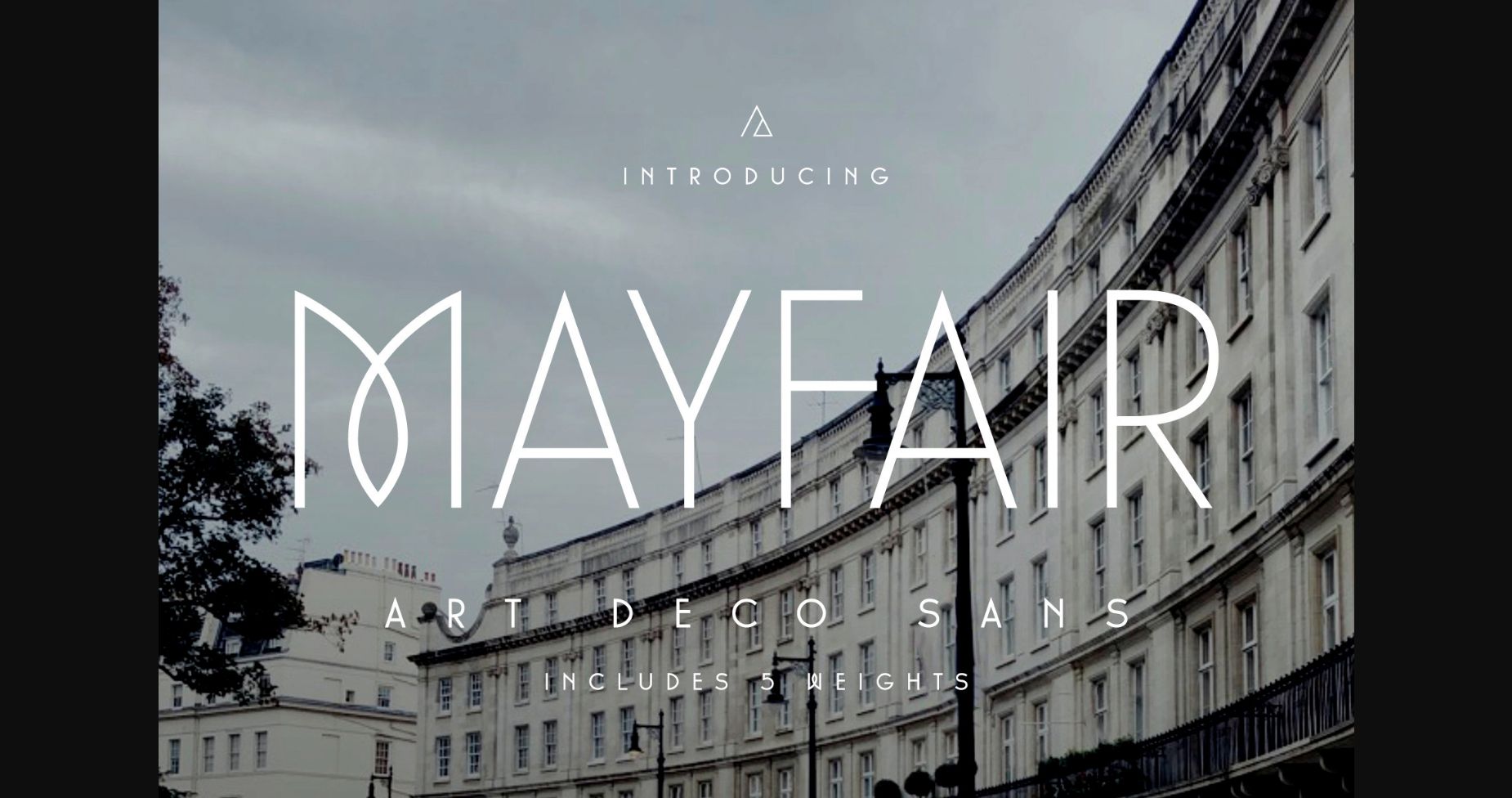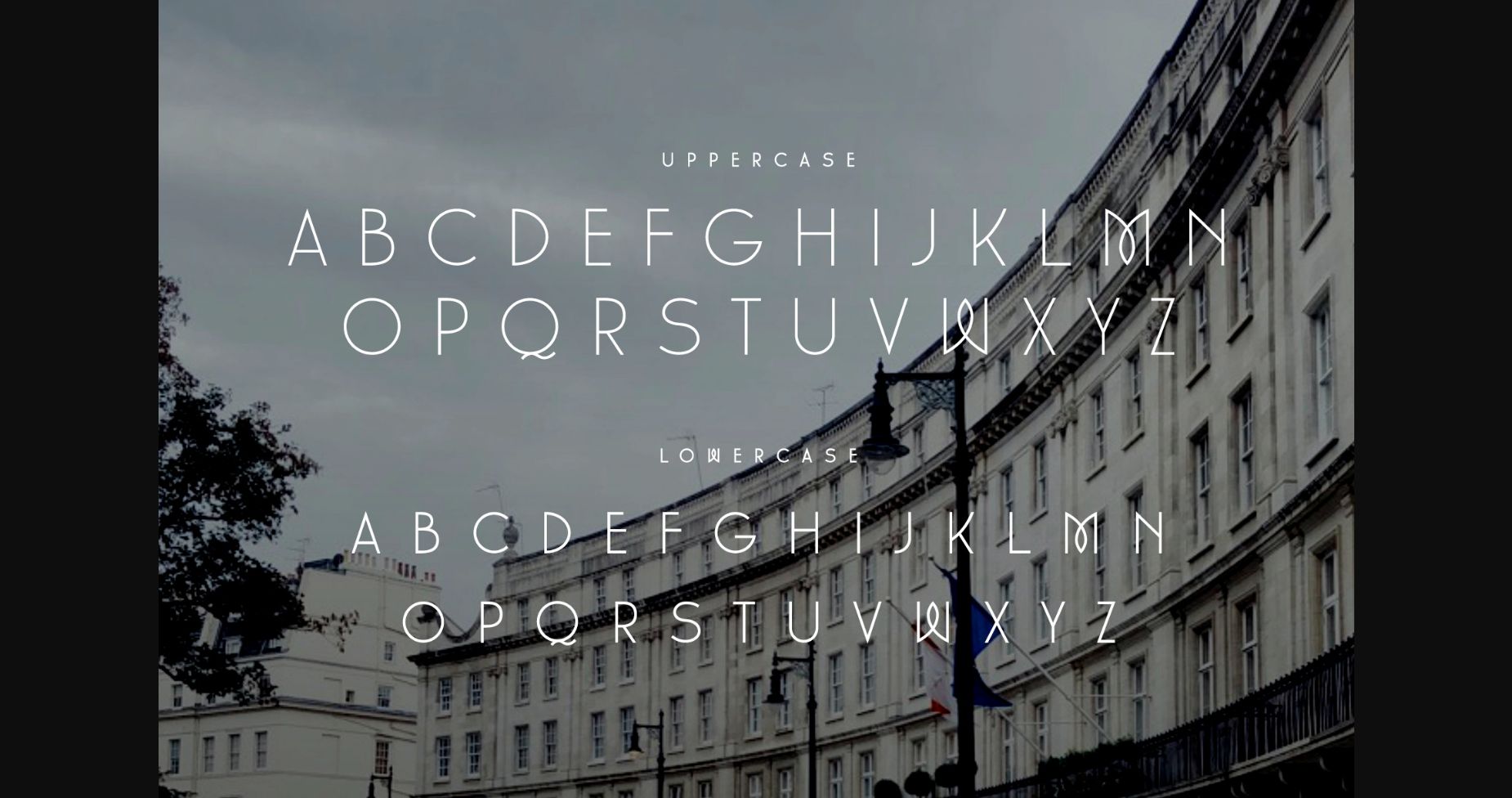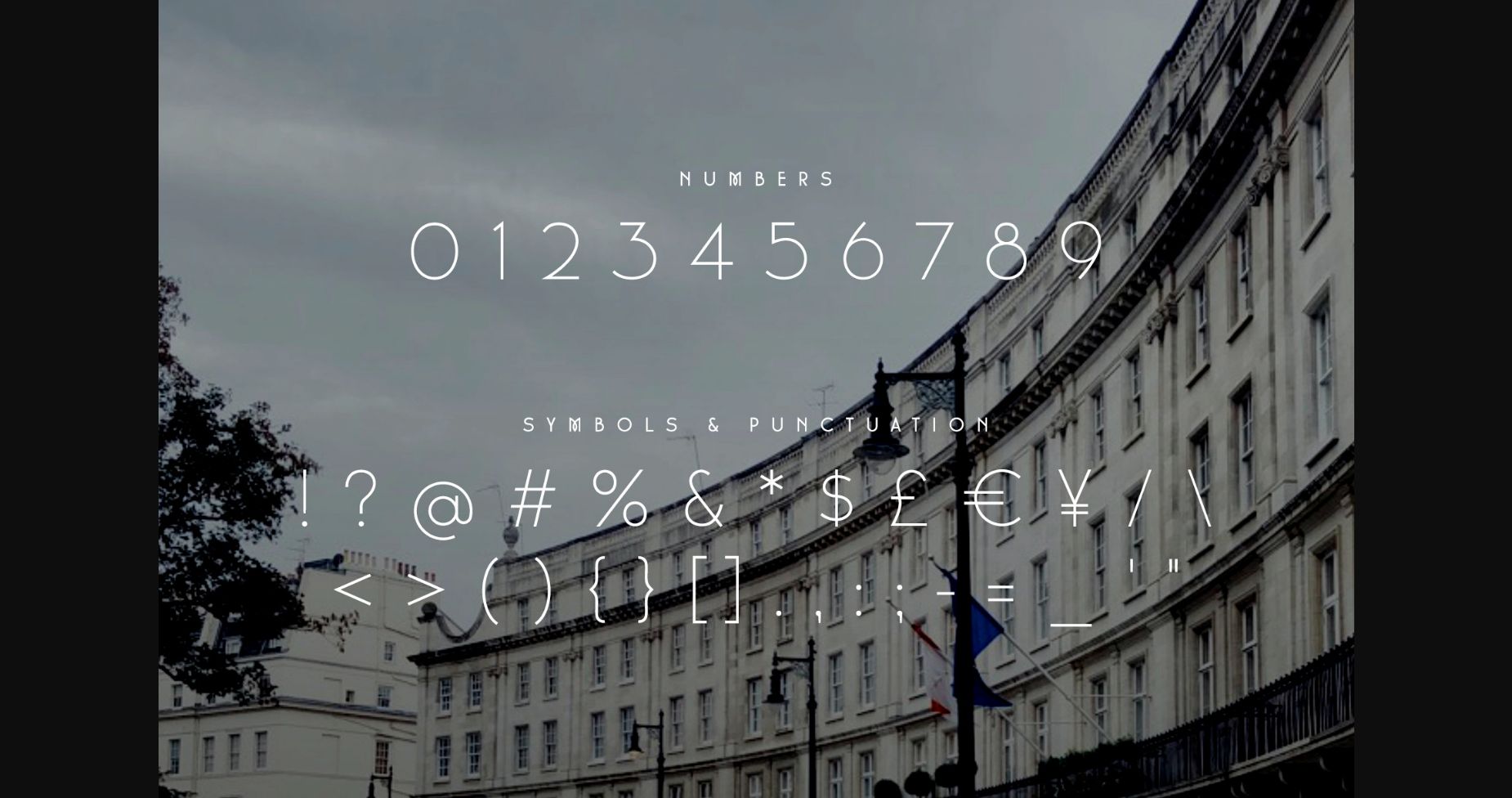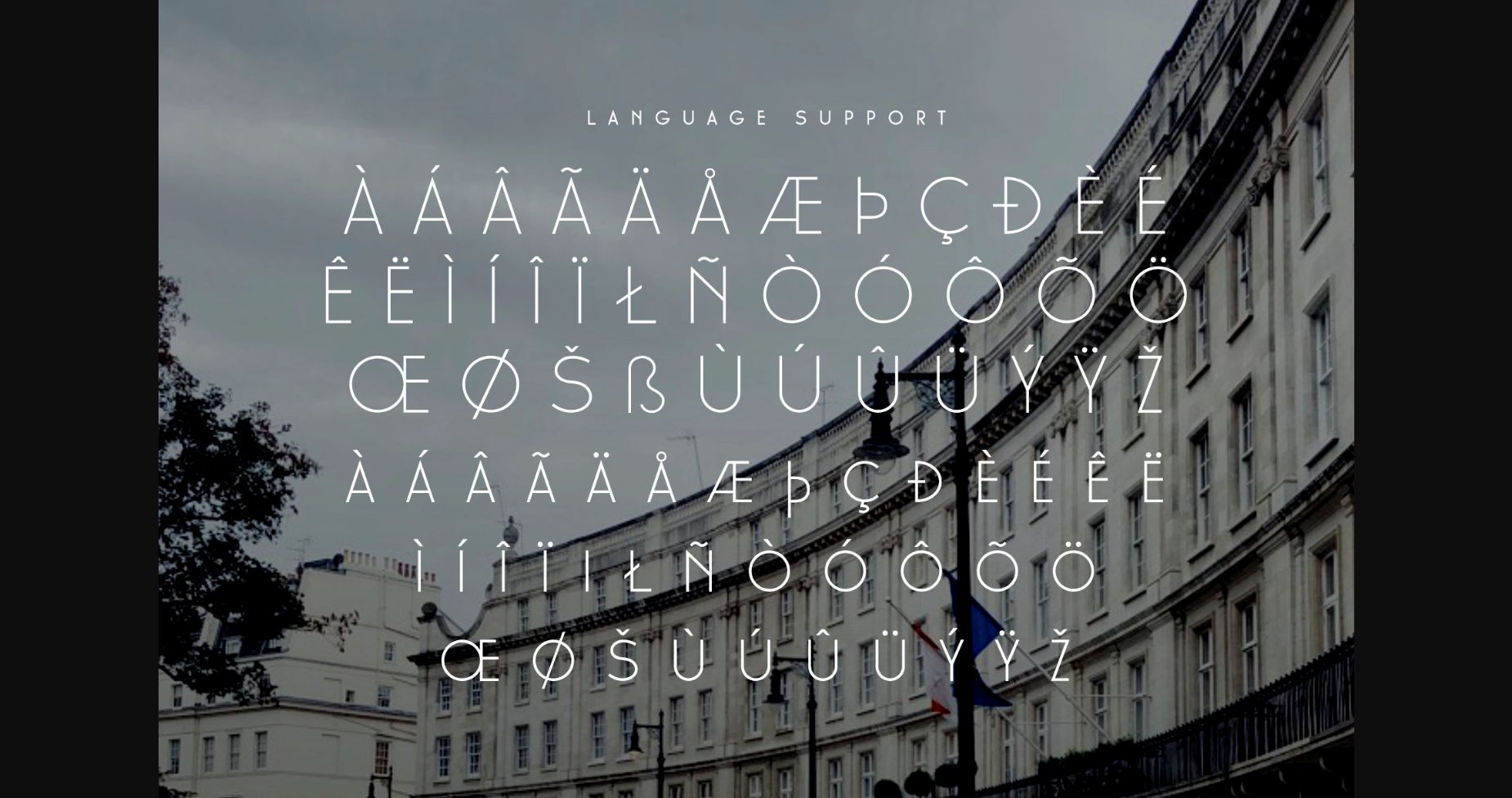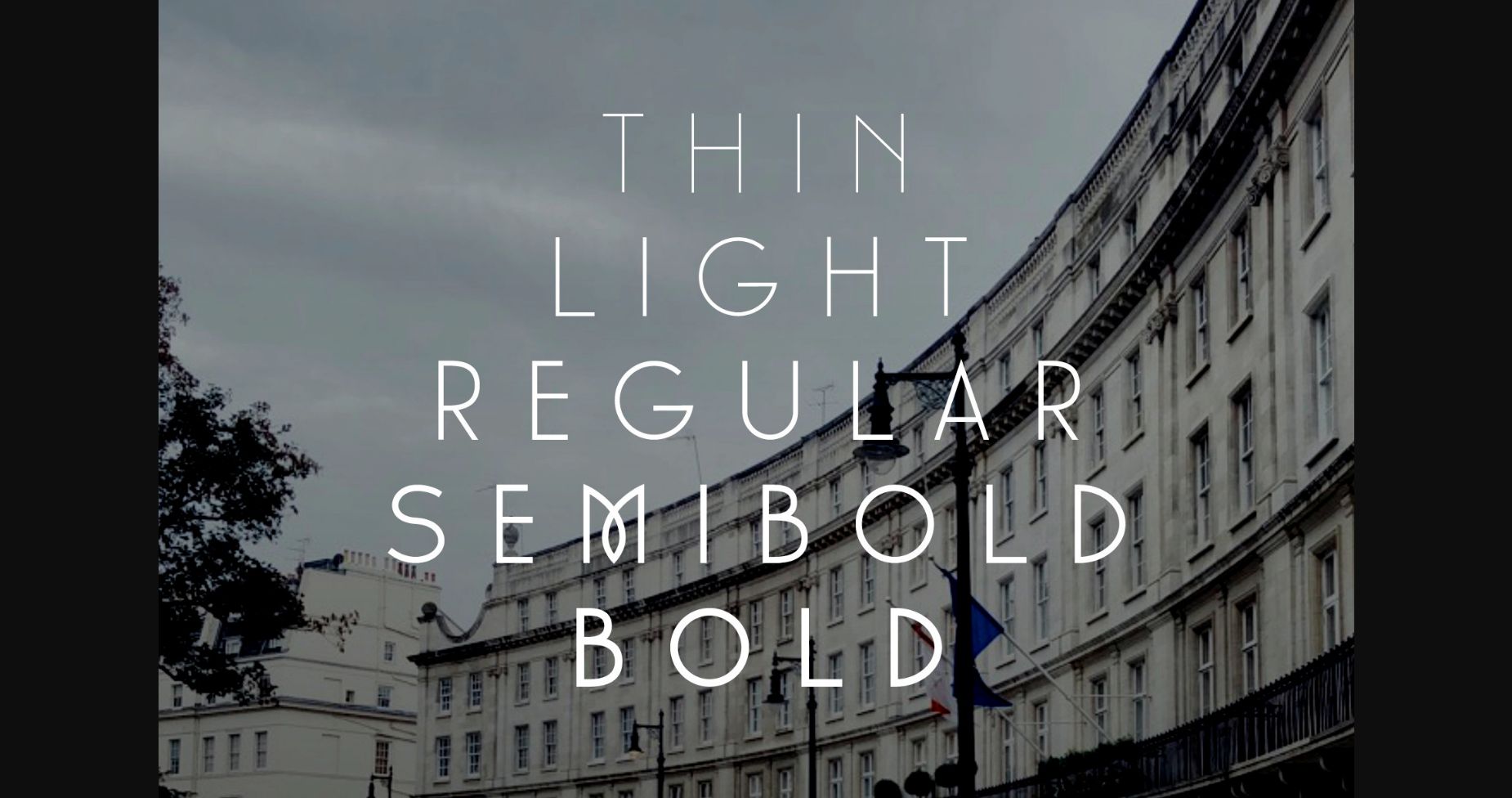
Mayfair Font
About Mayfair Font
Inspired by classic 1920s Art Deco design, Mayfair takes its proportions from the typography of the era and combines it with modern sans-serif techniques for a stylish classical feel. A perfect fit for posters, invitations, wedding cards, or film and tv. It combines light and heavy stroke widths with simple geometric forms to create a stylish appearance reminiscent of the 1920s design era.